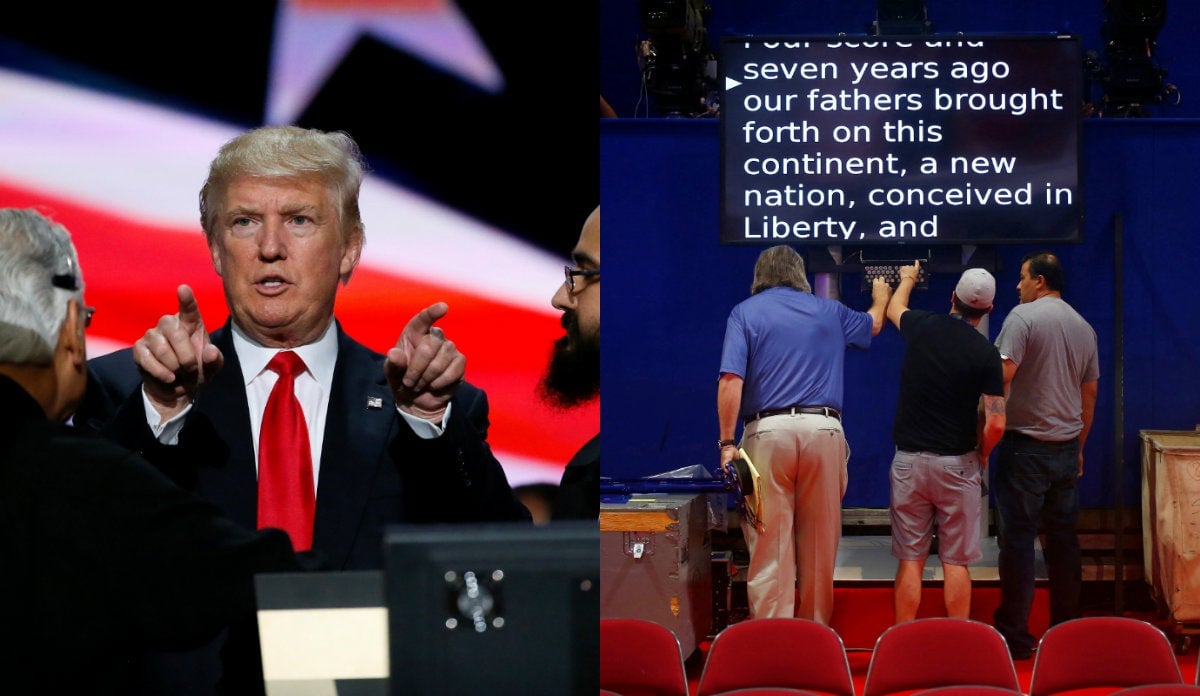
Republican presidential candidate Donald Trump knows exactly how he likes his fonts.
At a production rehearsal for his big speech at the Republican National Convention on Thursday (July 21), the practiced showman was recorded fussing over the typeface on his teleprompter on CSPAN, spotted by Twitter $TWTR user dontsave. “I like this font better than the thick one,” he said to the production crew, criticizing the default teleprompter letter style that resembles a distorted version of the font Avenir.
“There’s something really crisp,” Trump mused before reading the first words in the alternate typeface.
He practiced reading with the first words of the Gettysburg address, which is the standby placeholder text on the RNC’s teleprompters. “Four score and seven years ago…there’s something really clean about this font,” Trump said, sounding very much like an type-sophisticate art director. “I’ll be honest with you, I love the look of this!”
“It is a good font,” affirmed daughter Ivanka’s husband Jared Kushner glancing at mirror image teleprompter. Trump tried to sell his daughter on the same lettering style, but she had her own ideas. “I want mine bigger,” Ivanka said.
Based on the photo below, Melania Trump, however, appears to have used the same font style that Donald really, really loved, in that her much-criticized July 18 speech.